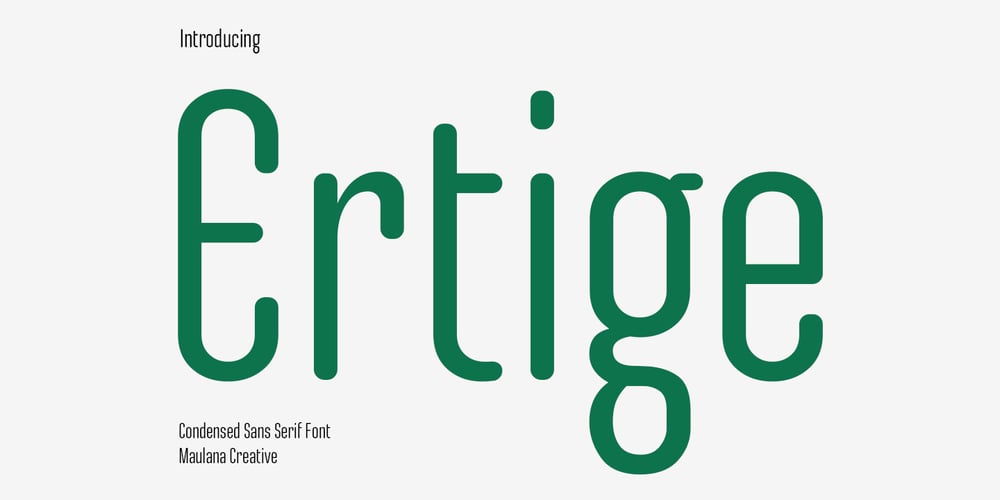
MC Ertige
MC Ertige font
MC Ertige Font Family was designed by Gilang Maulana and published by Maulana Creative. MC Ertige contains 1 styles and family package options. Ertige is a condensed sans serif Display font. Regular stroke, fun character with a bit of ligatures and alternates. To give you an extra creative work. Ertige font support multilingual more than 100+ language. This font is good for logo design, Social media, Movie Titles, Books Titles, a short text even a long text letter and good for your secondary text font with script or serif. Make a stunning work with Ertige font. Cheers, Maulana Creative